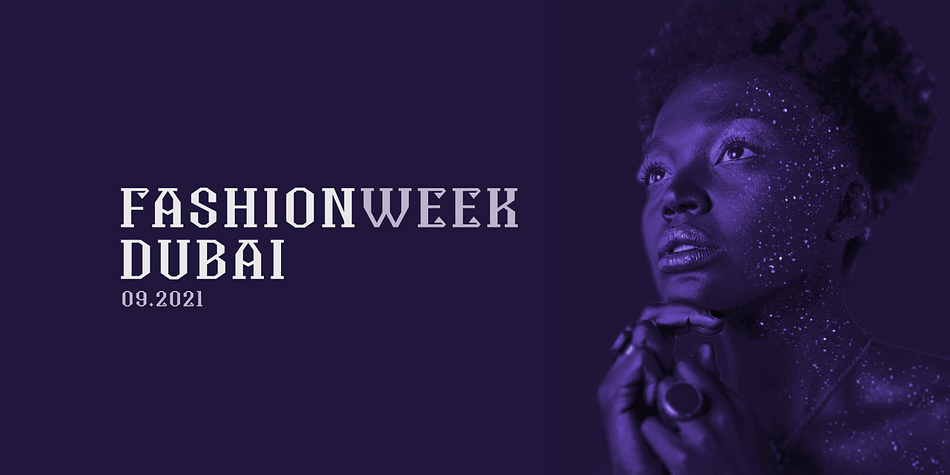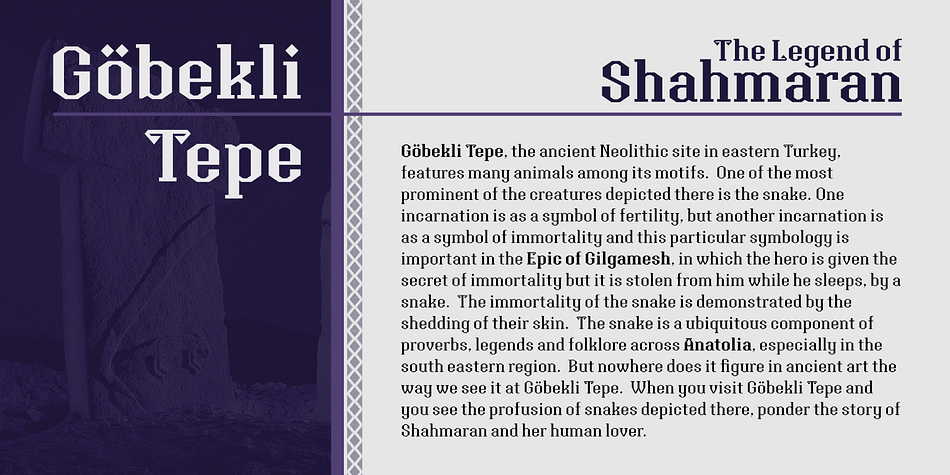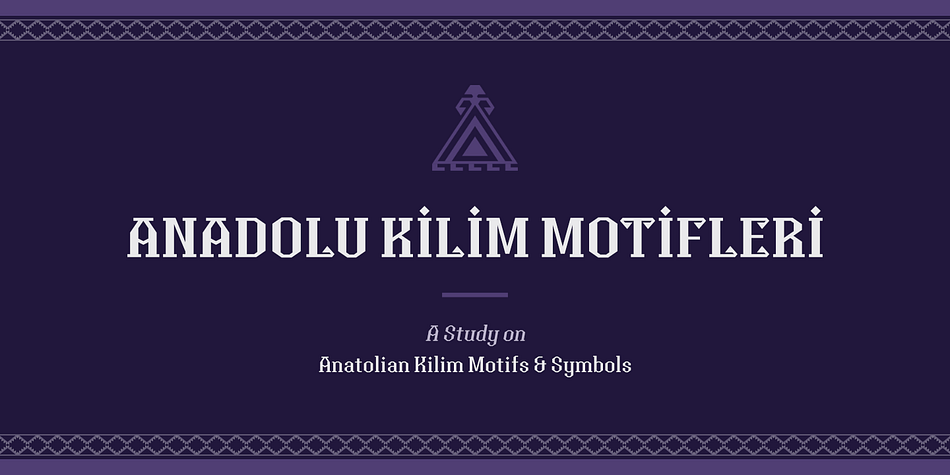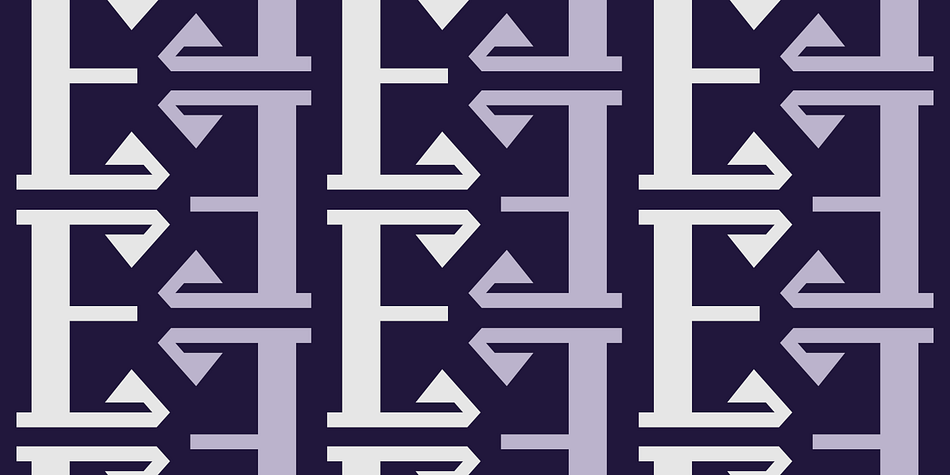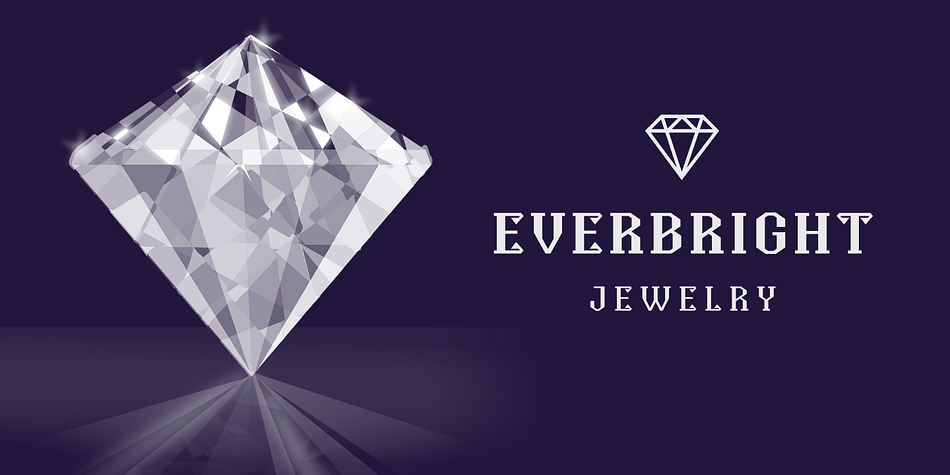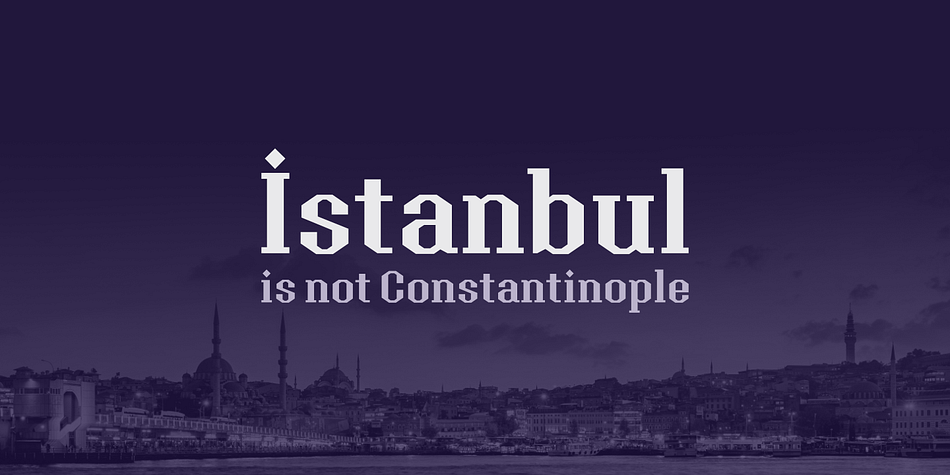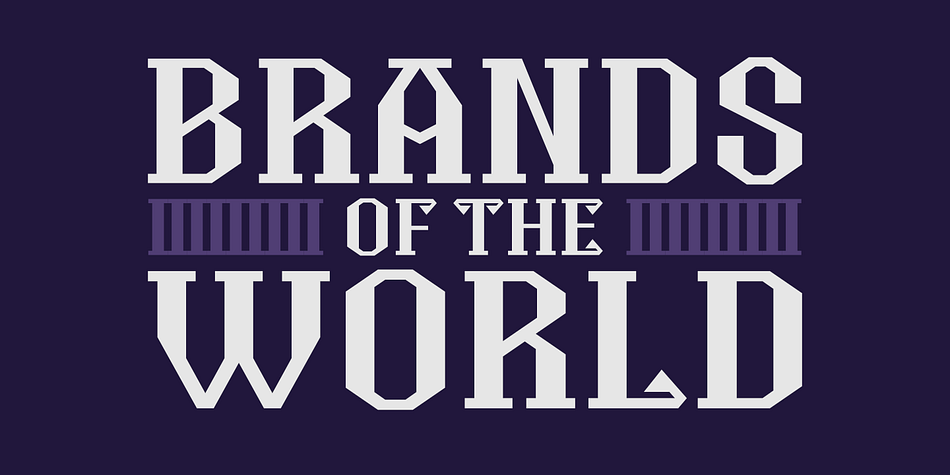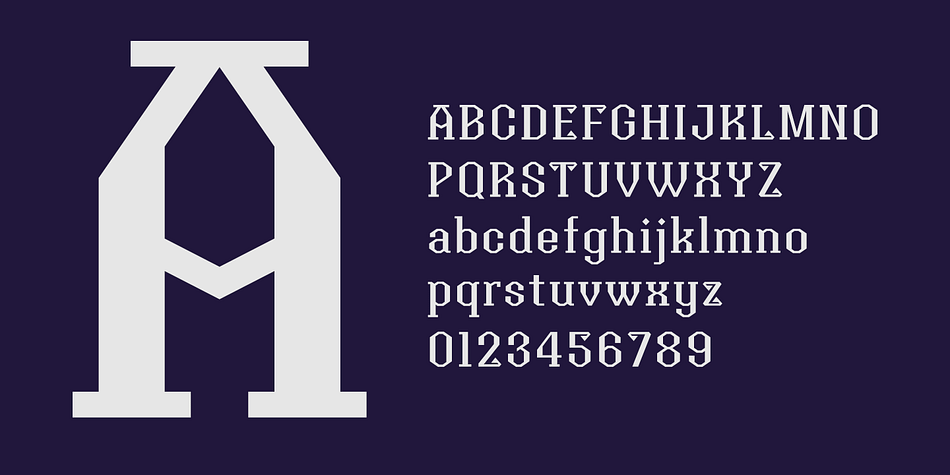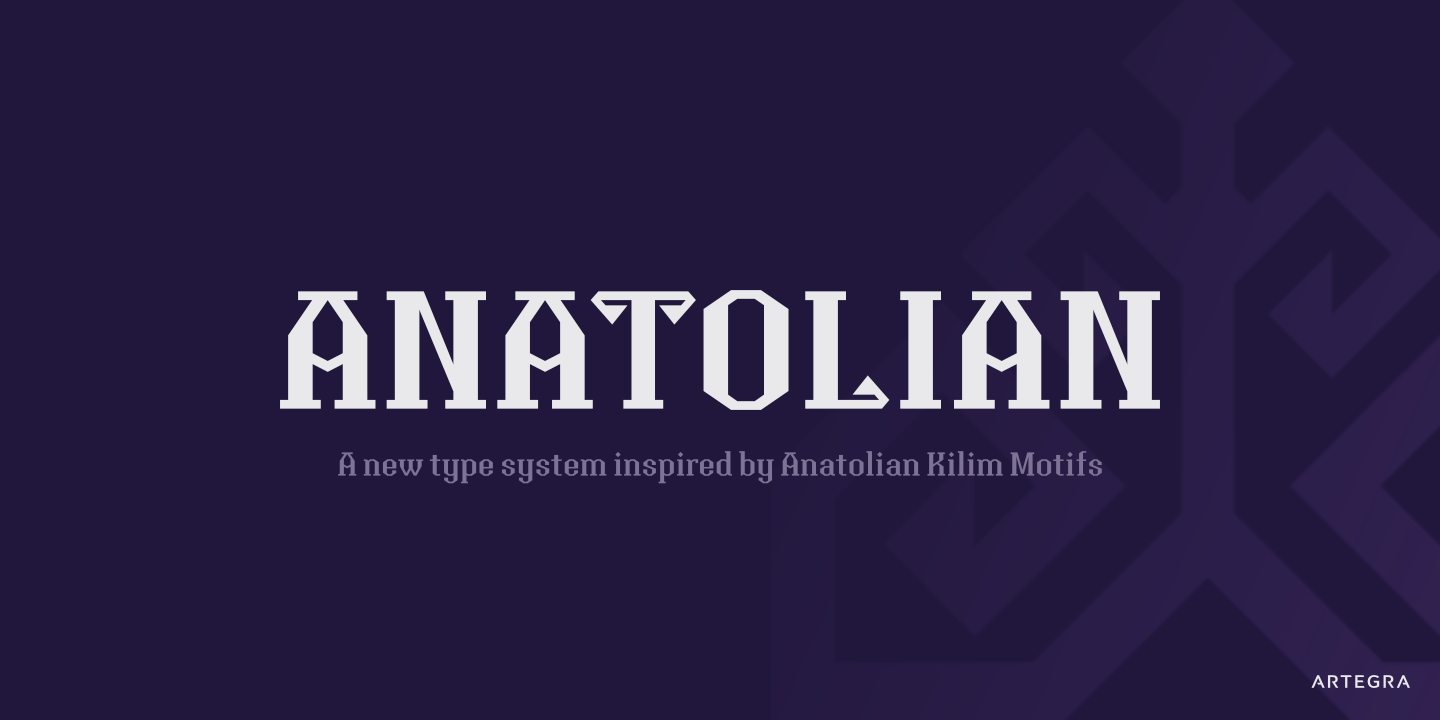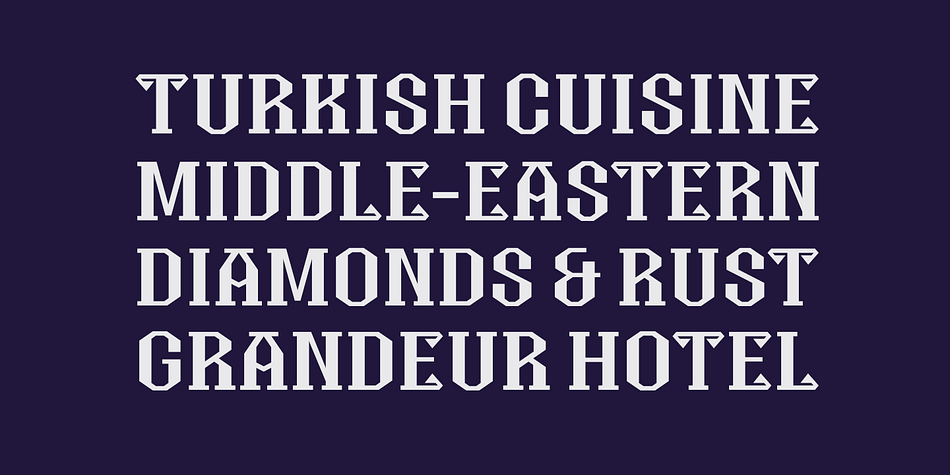
Anatolian
Designed by Ceyhun Birinci, Anatolian is a display serif and exotic font family. This typeface has twelve styles and was published by Artegra.
Anatolian typeface was designed with inspiration from the traditional Anatolian kilim motifs and symbols that characterize Turkish culture. Motifs and design elements that has been used for centuries on carpets now found place in a typeface as serifs. It was exciting to see how these old design elements would turn into a modern font that would be applicable for modern designs.
The result was the Anatolian typeface; a purely Anatolian display family that is surprisingly readable as a text font also. Carefully designed proportions and serifs allowed this legibility while standing out as a unique typeface. This new type system would work great in branding, advertising, packaging and many other design areas whether traditional or modern.